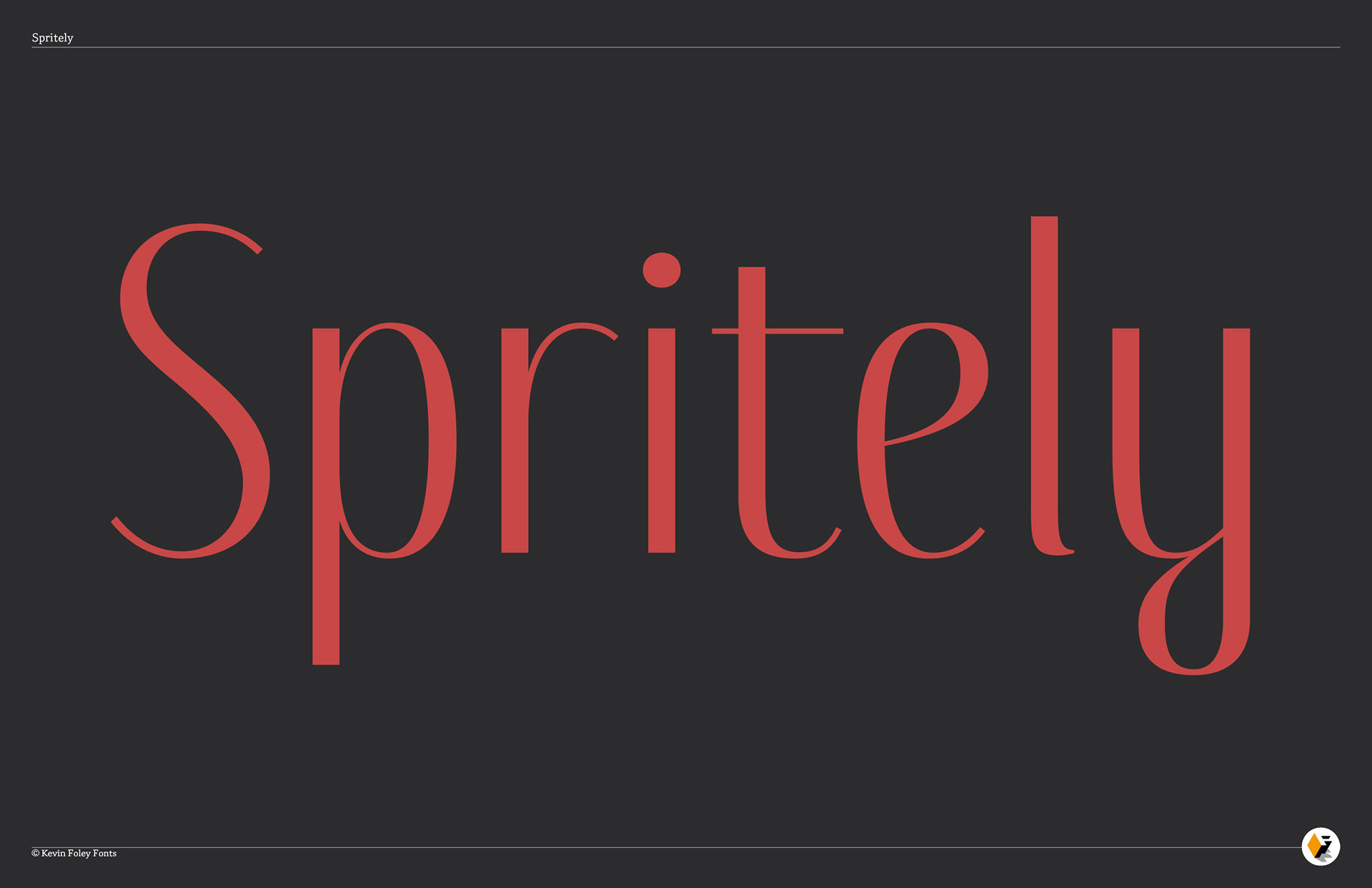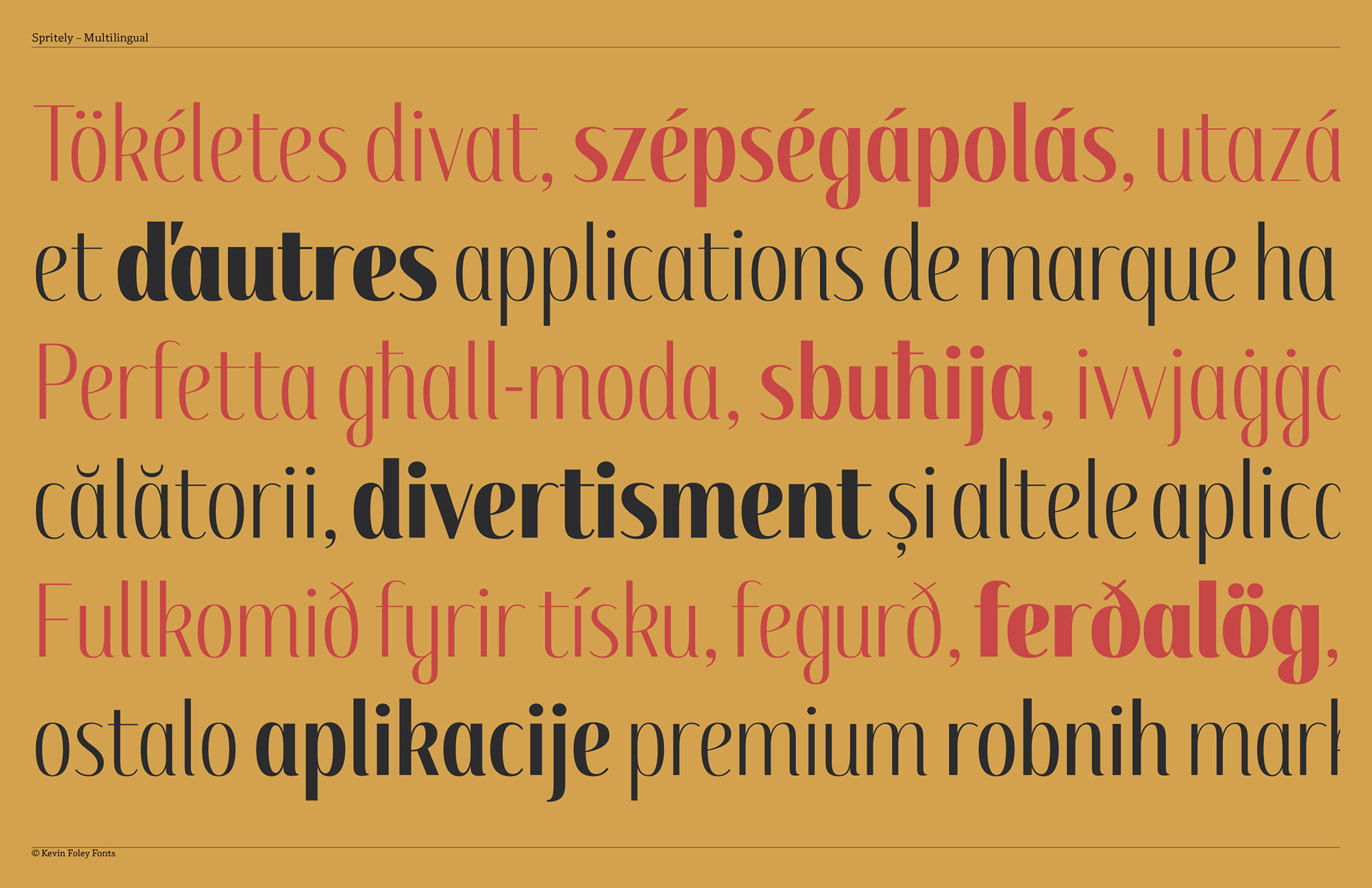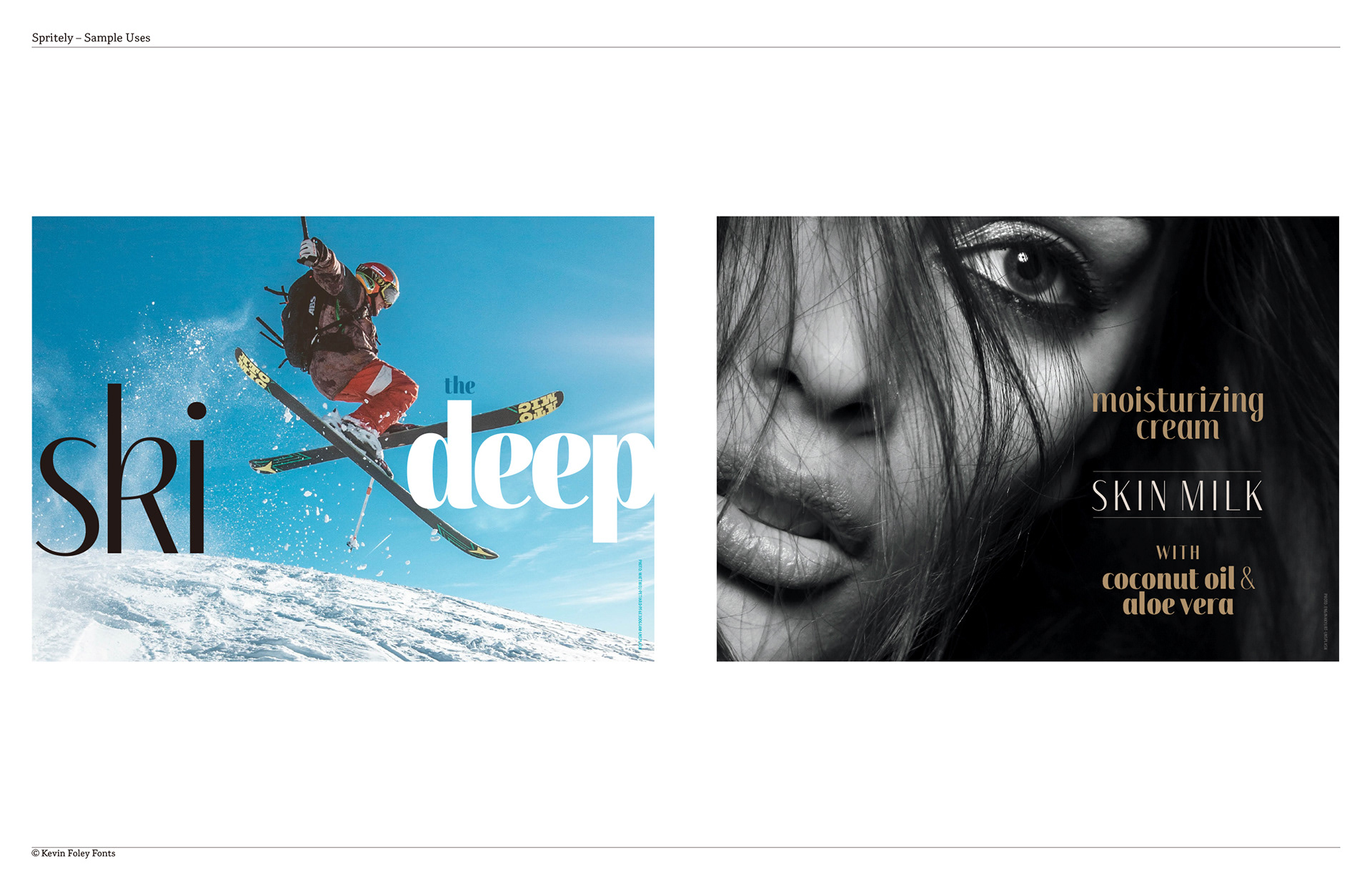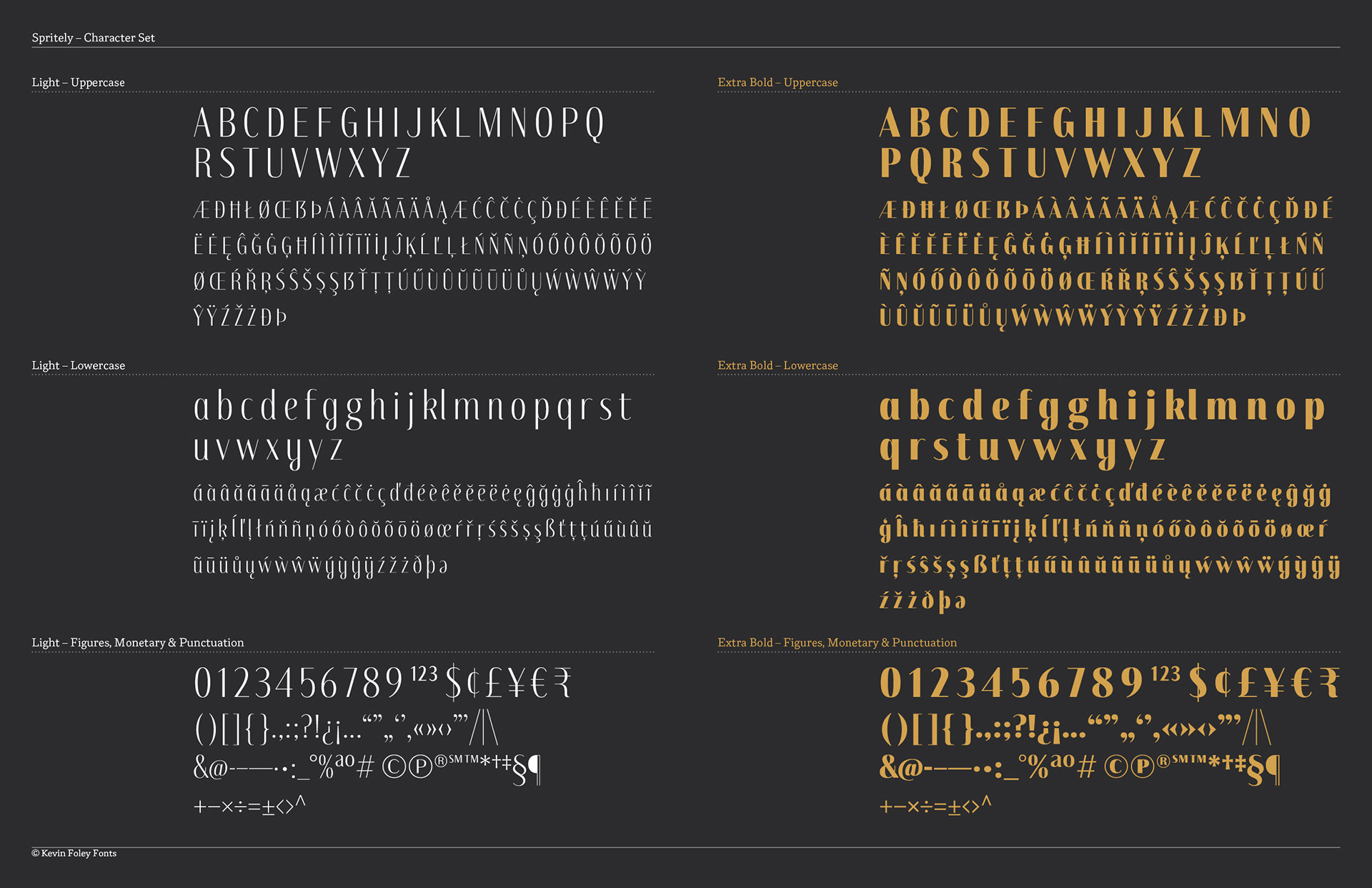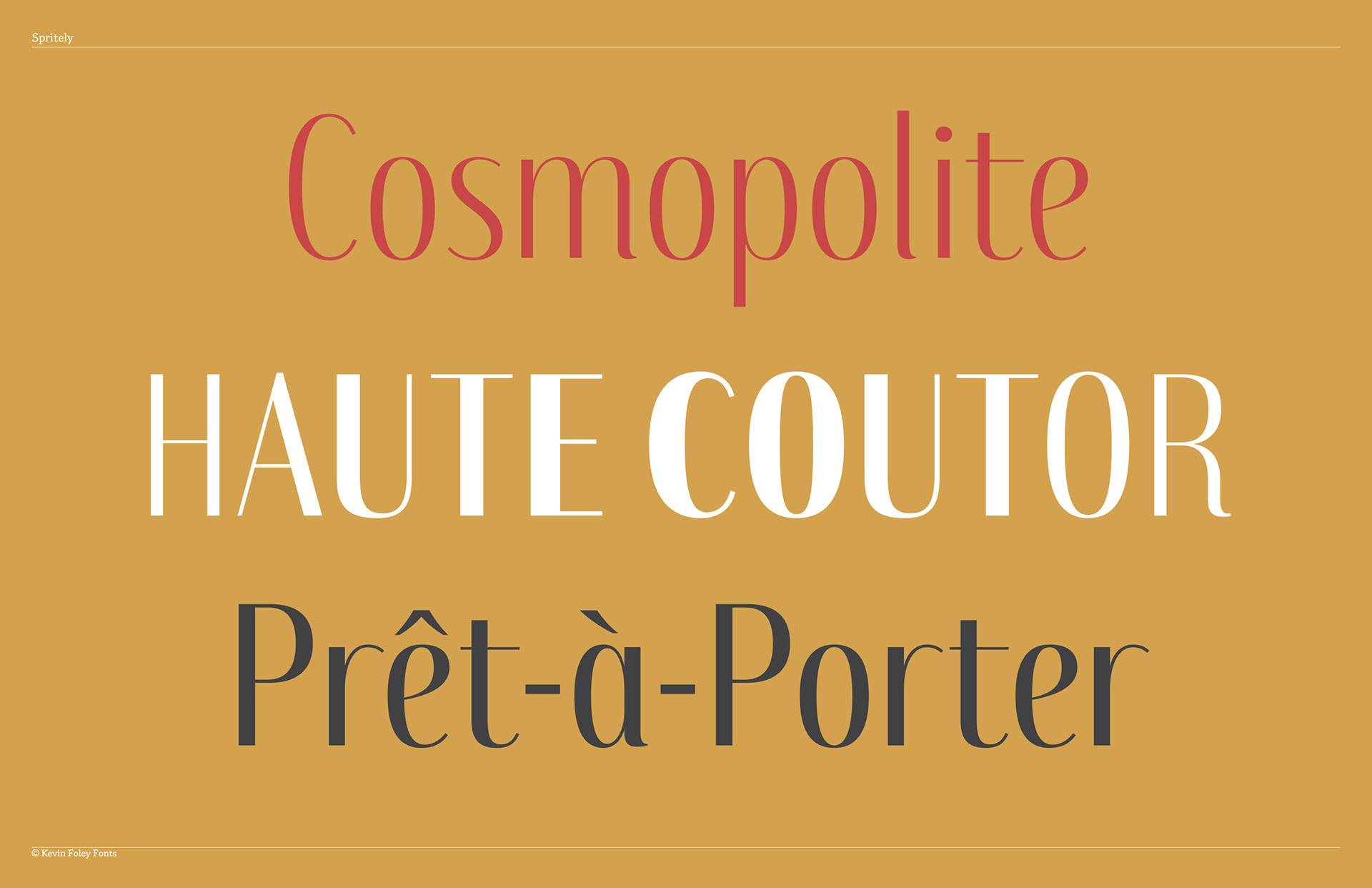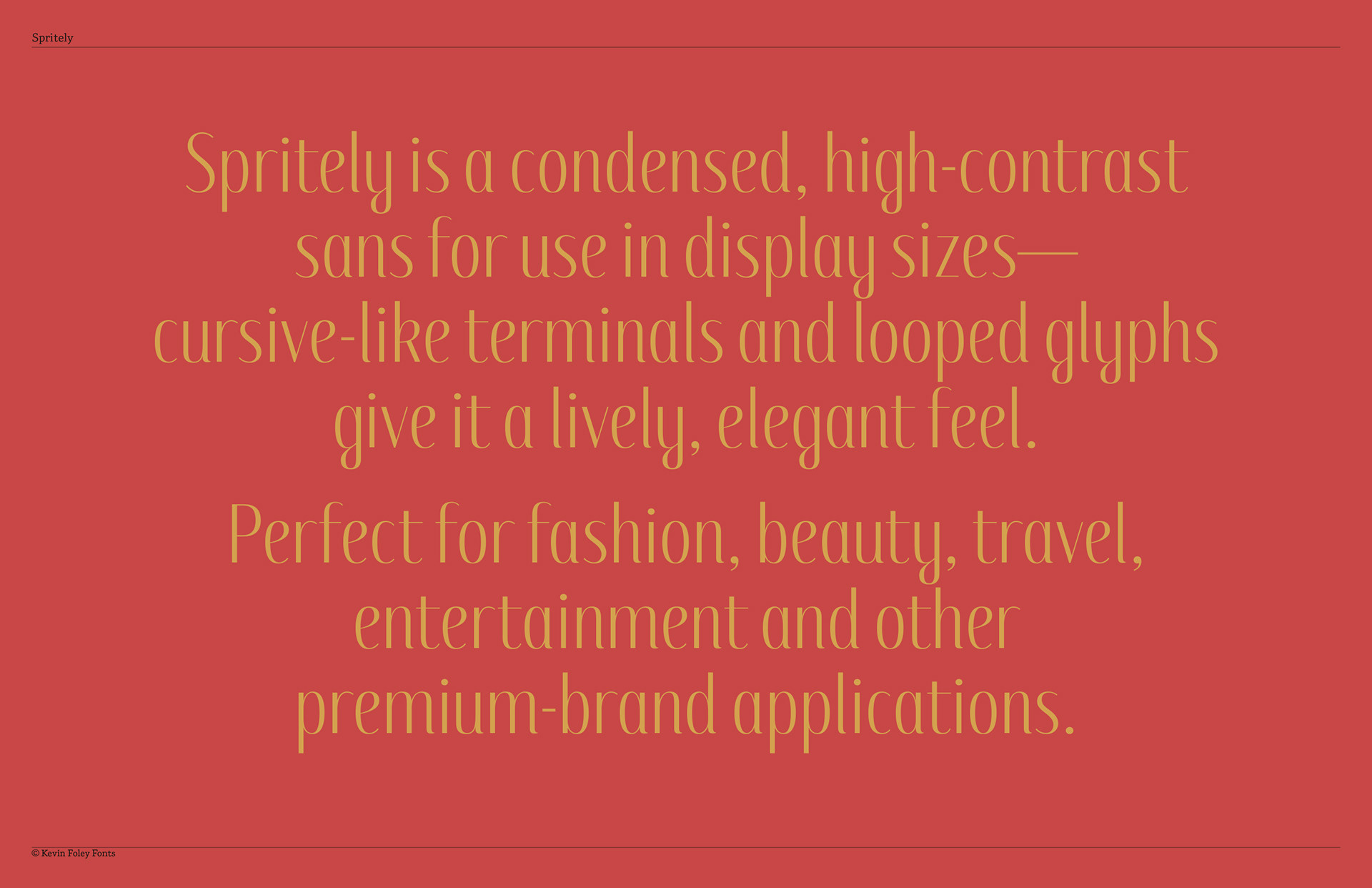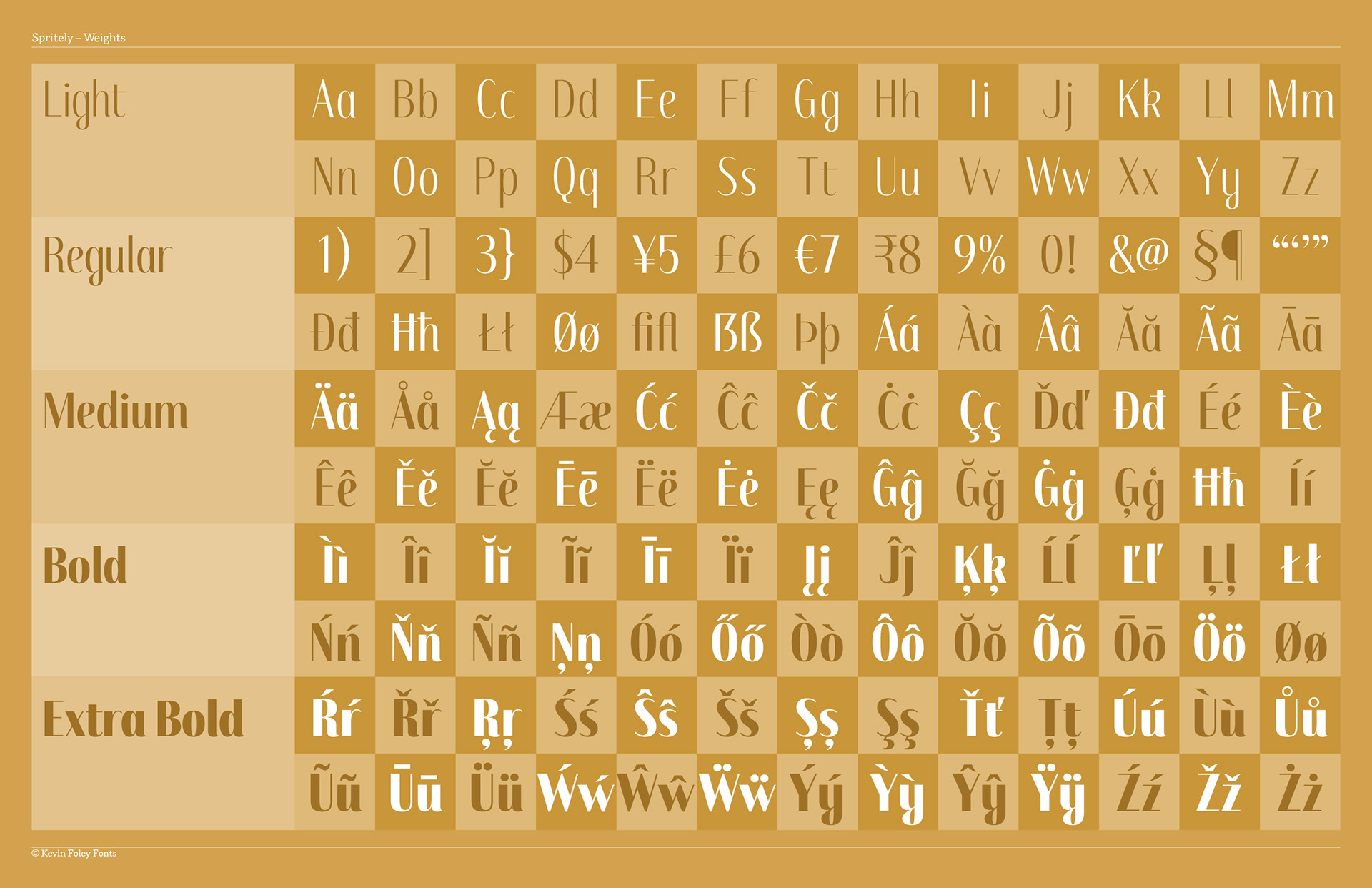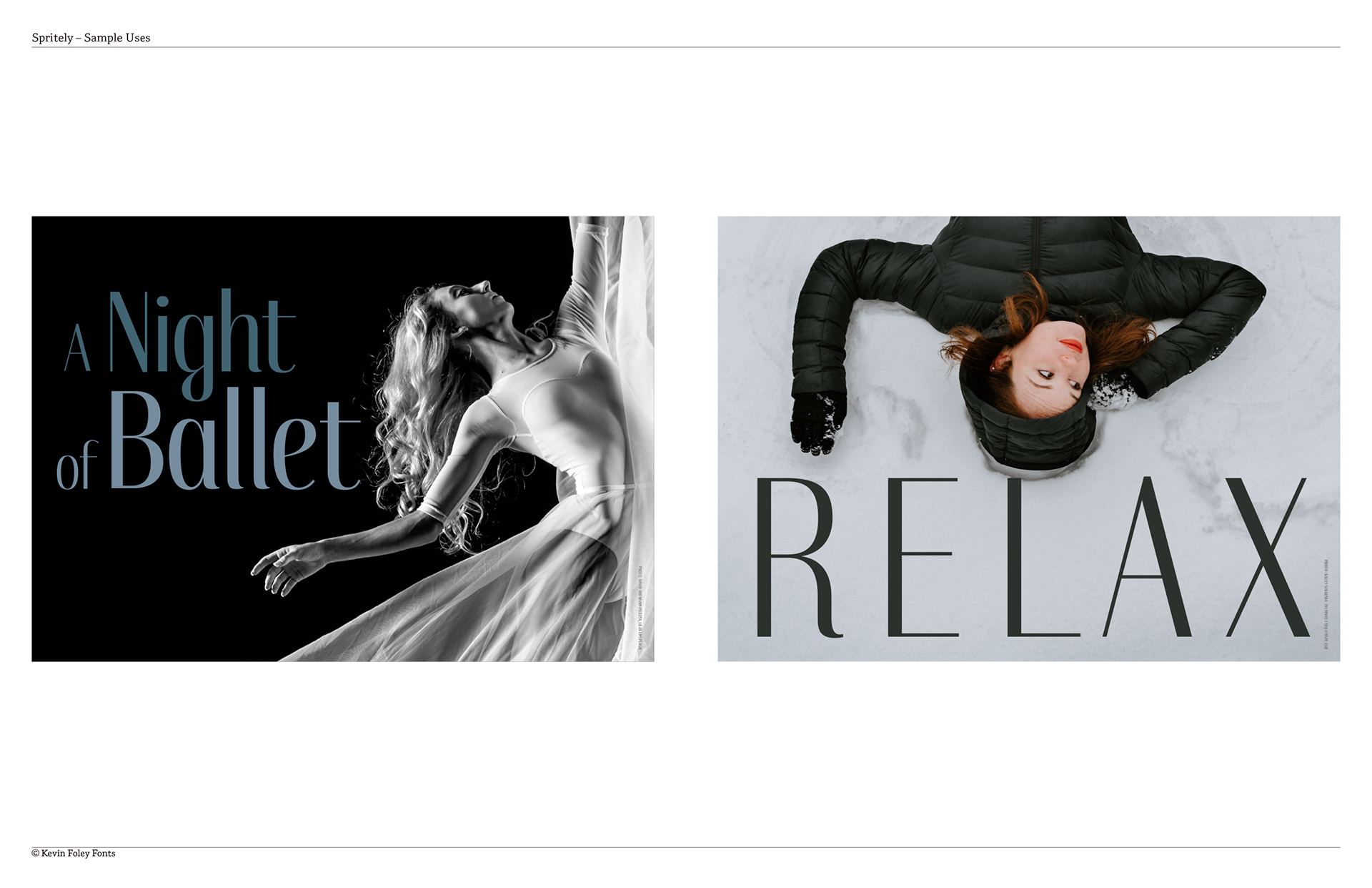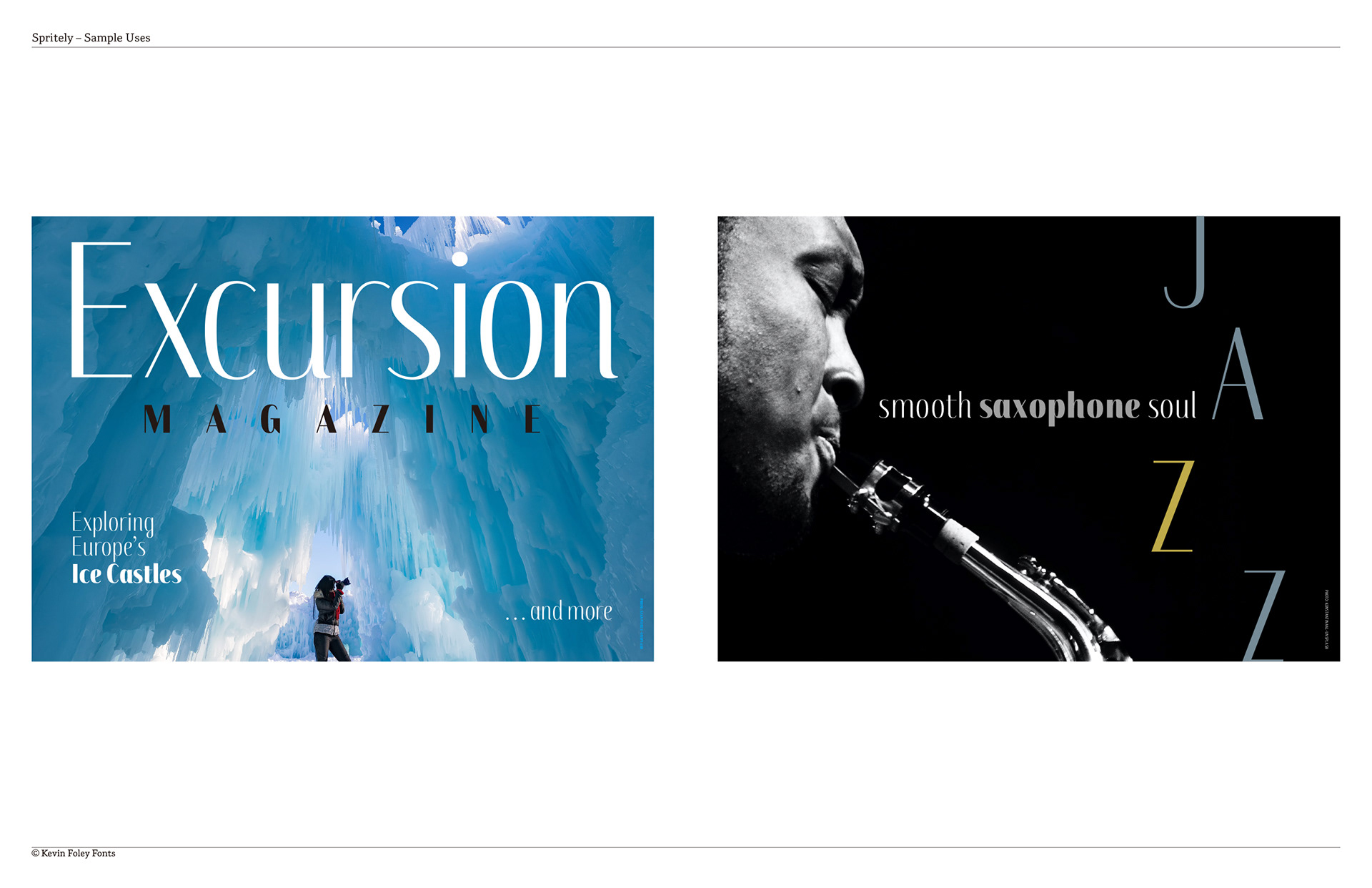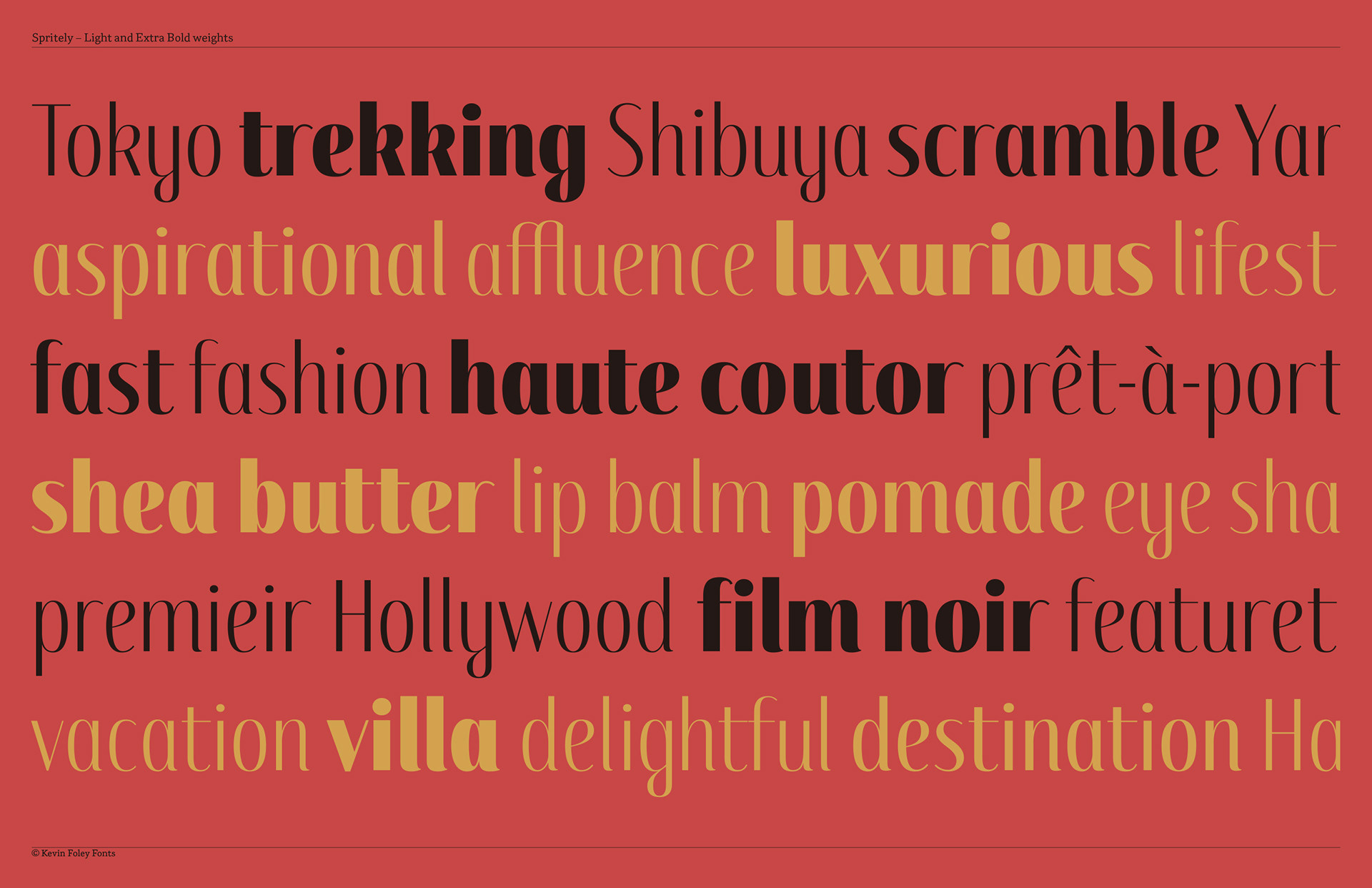
A condensed, decorative sans-serif typeface for use in display sizes. Perfect for fashion, beauty, travel, entertainment and other premium-brand applications.